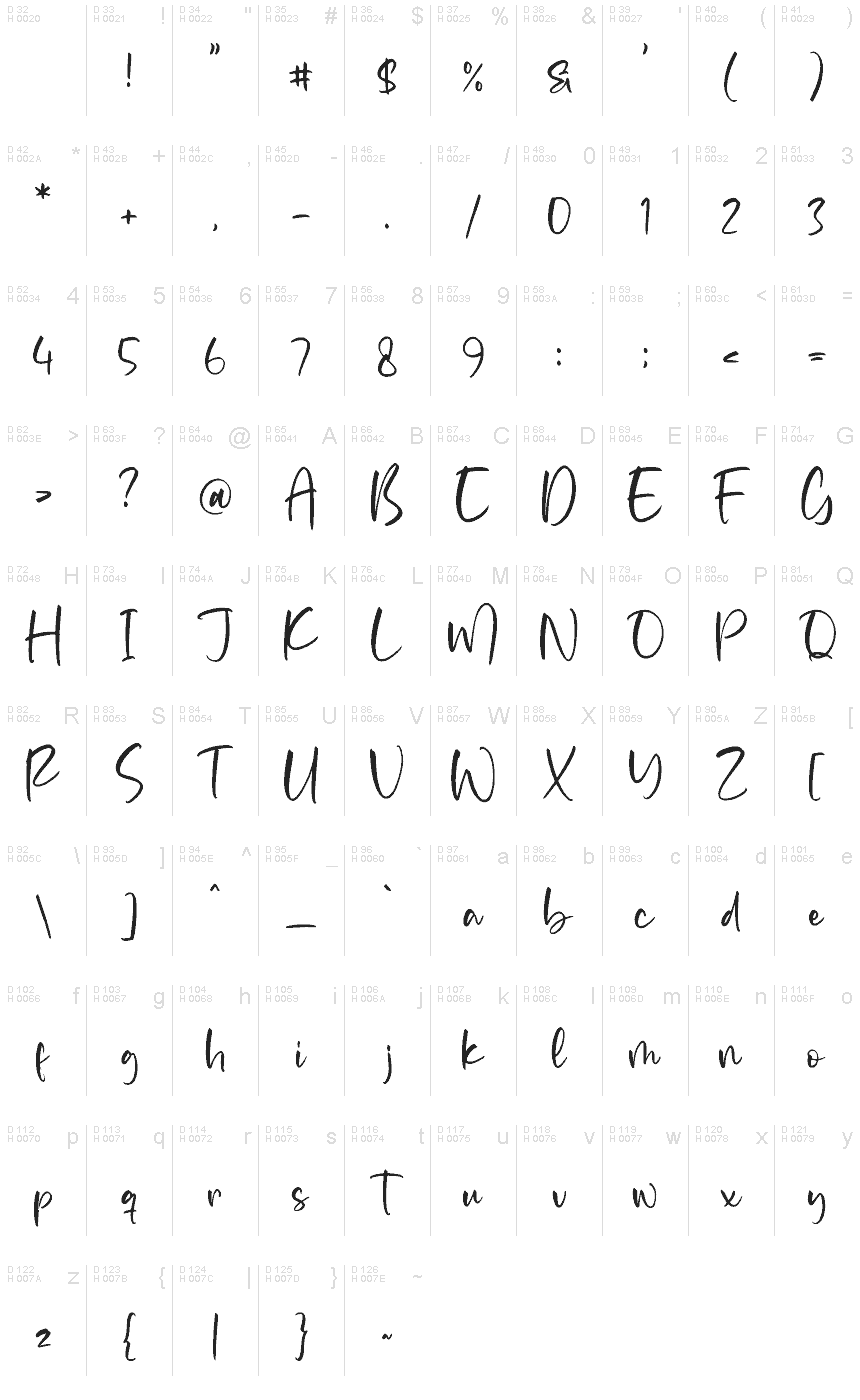
Templatos
Presenting Templatos, a handwritten font that will spice up any typographic design. With stylish, eye-catching letters, Templatos will create unique projects with little effort. Templatos is a versatile font with flowing characters and a variety of uppercase and lowercase letters for your creative purposes. This will look amazing with logotype projects, clothing brands, book covers, t-shirts, branding titles and packaging. Make your headlines stand out or bring your titles to life with one simple click.